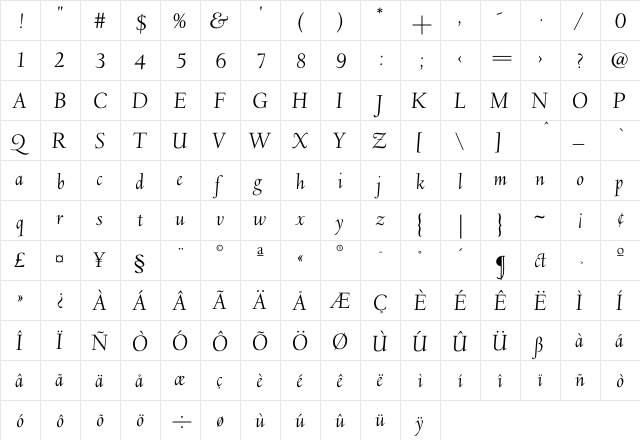
Deepdene L-Italic
Design Context for Deepdene Typeface
Deepdene takes a measured approach to typography — its balanced proportions and neutral character make it a reliable workhorse for both digital and print work. Its italic angle brings a sense of urgency and motion to the letterforms.
Pro Tip: Use Deepdene for emphasis, pull quotes, and subheadings where its slanted energy can add rhythm to the layout.